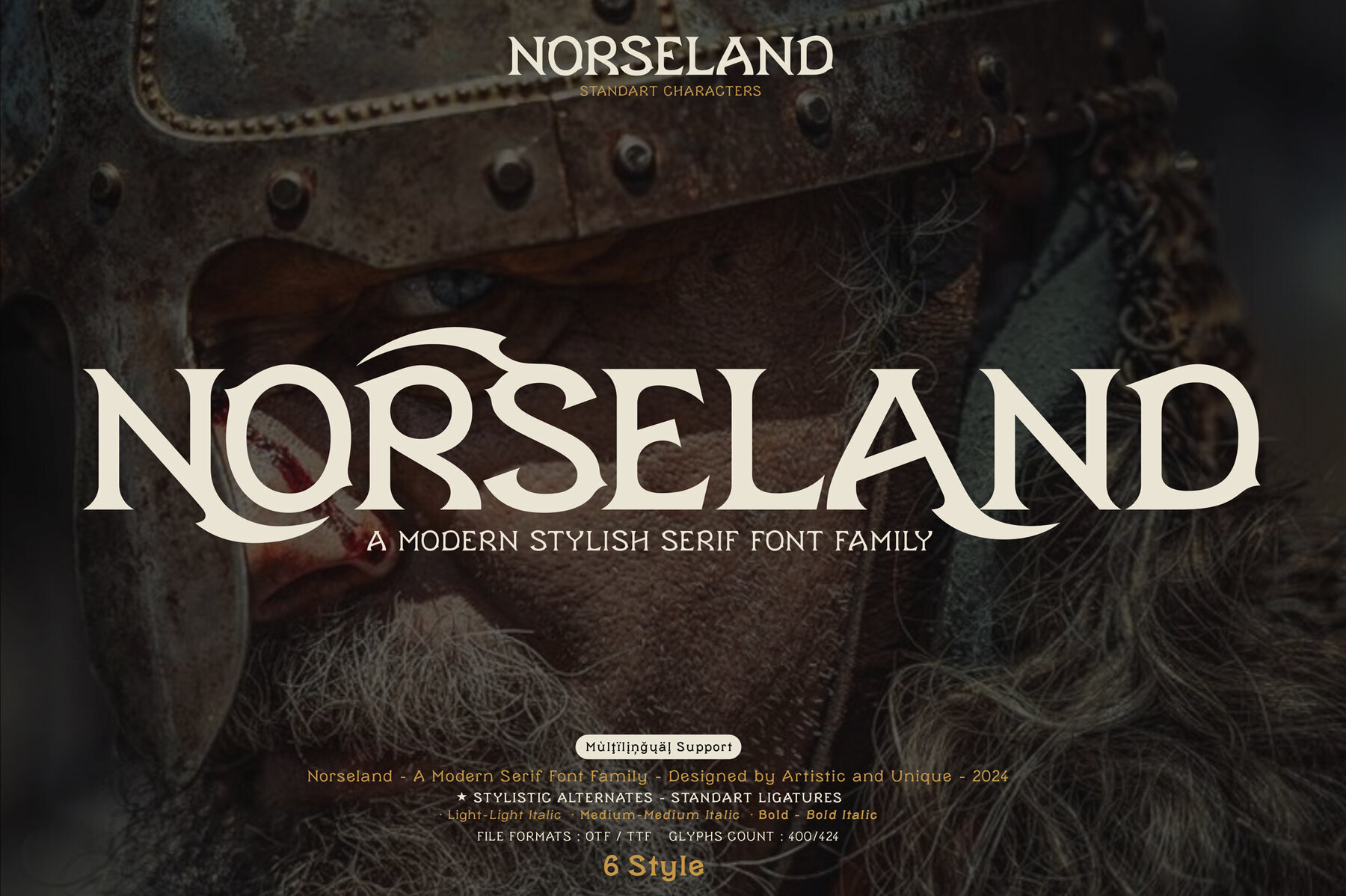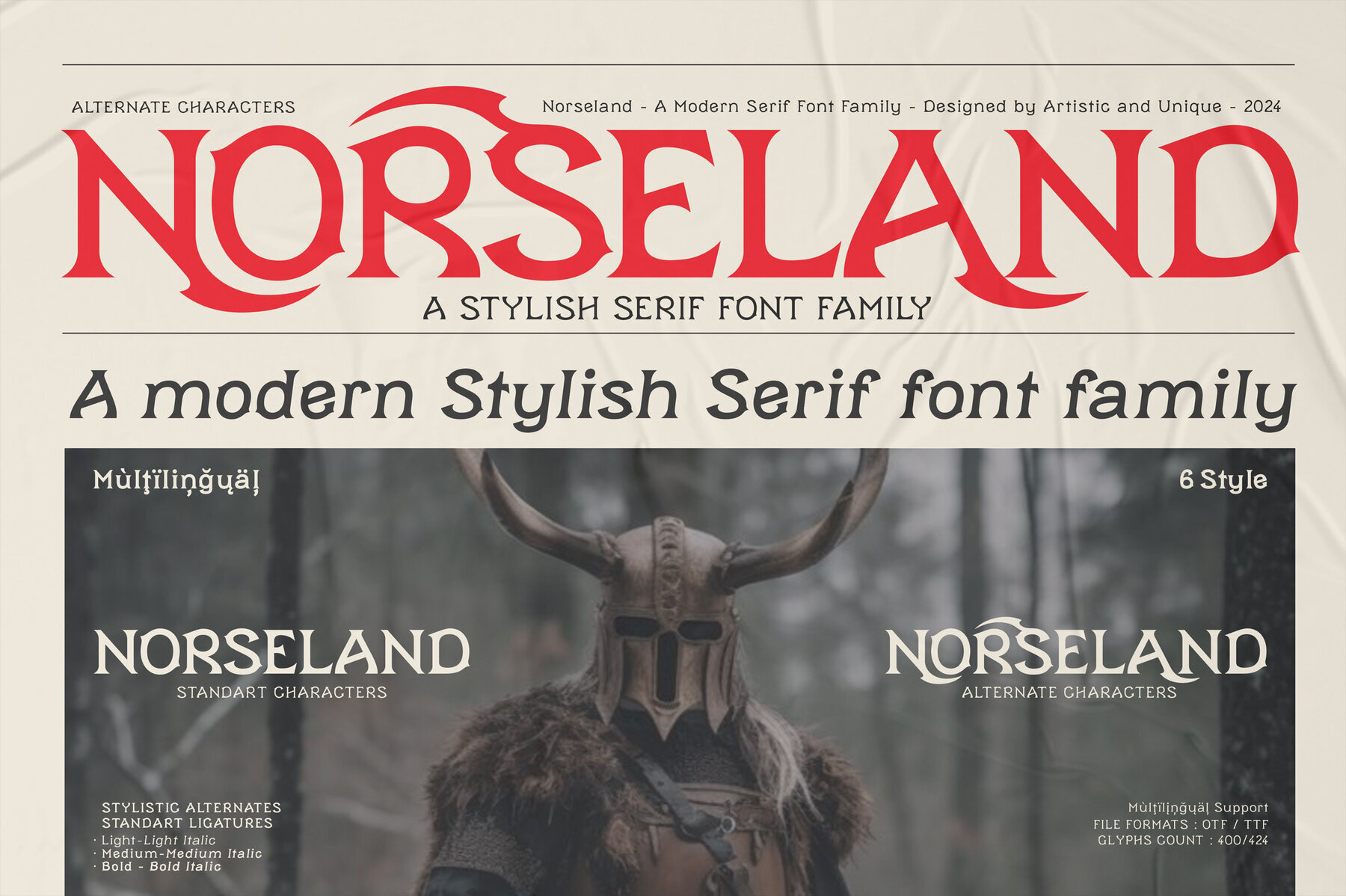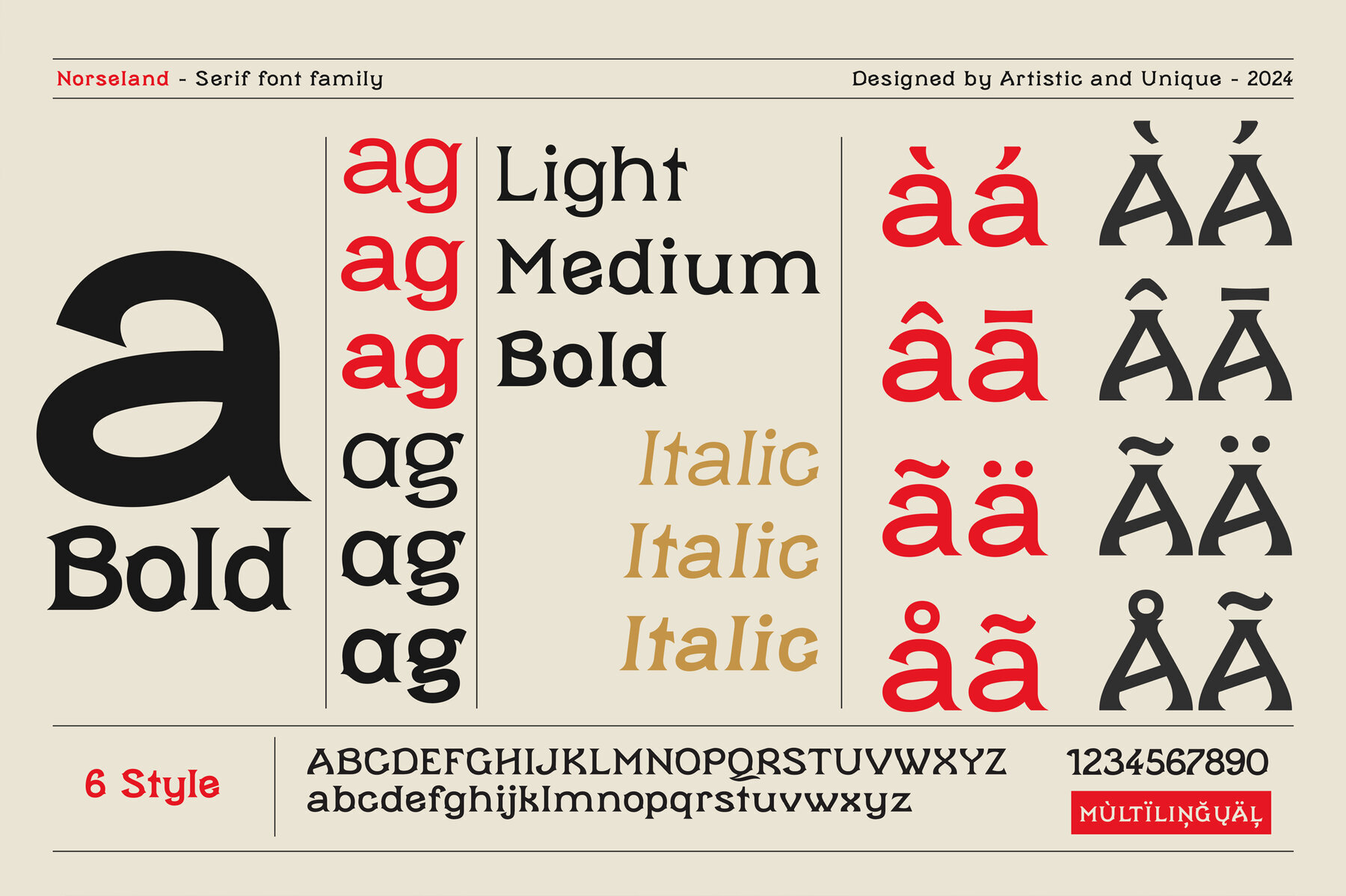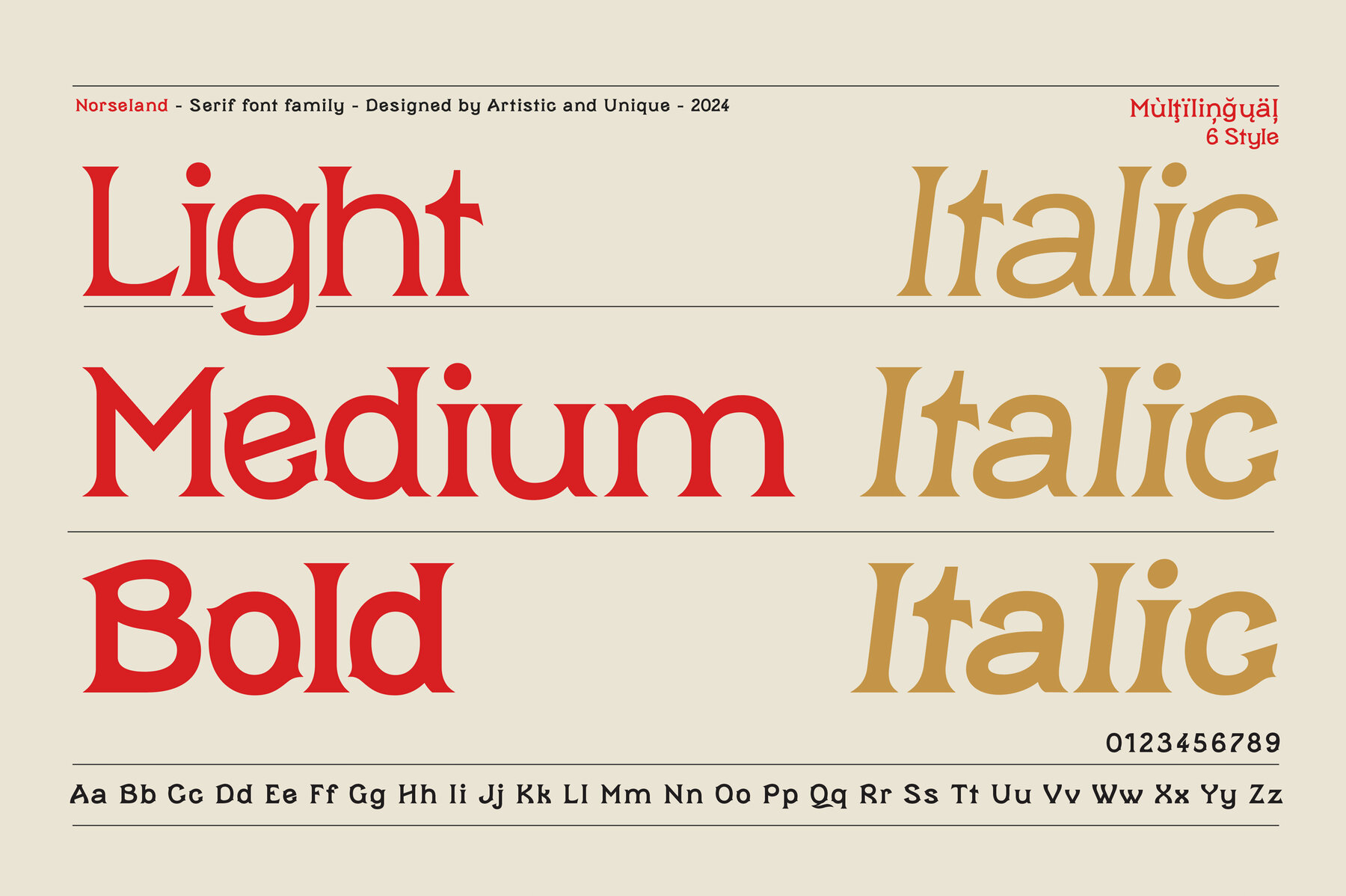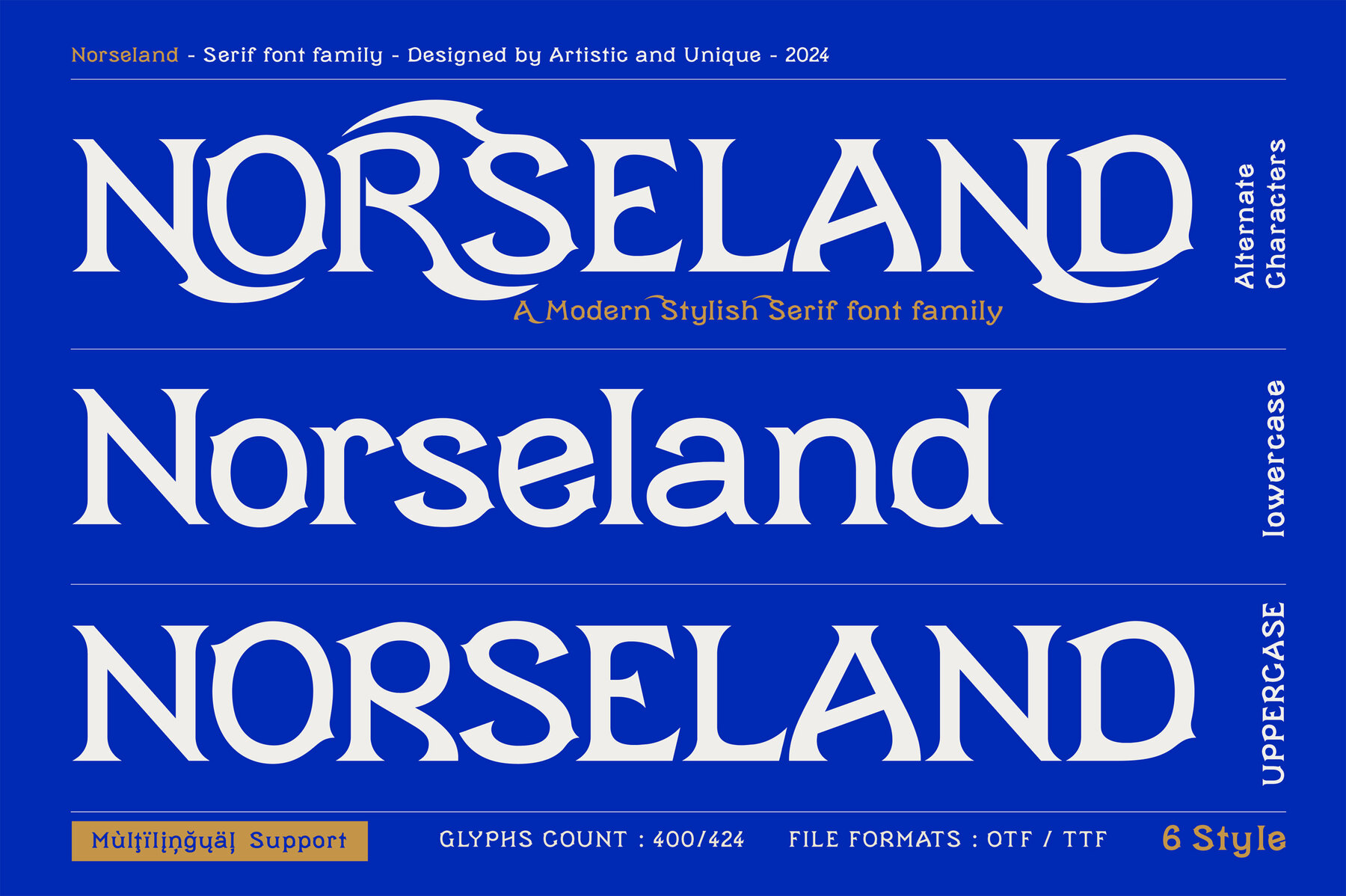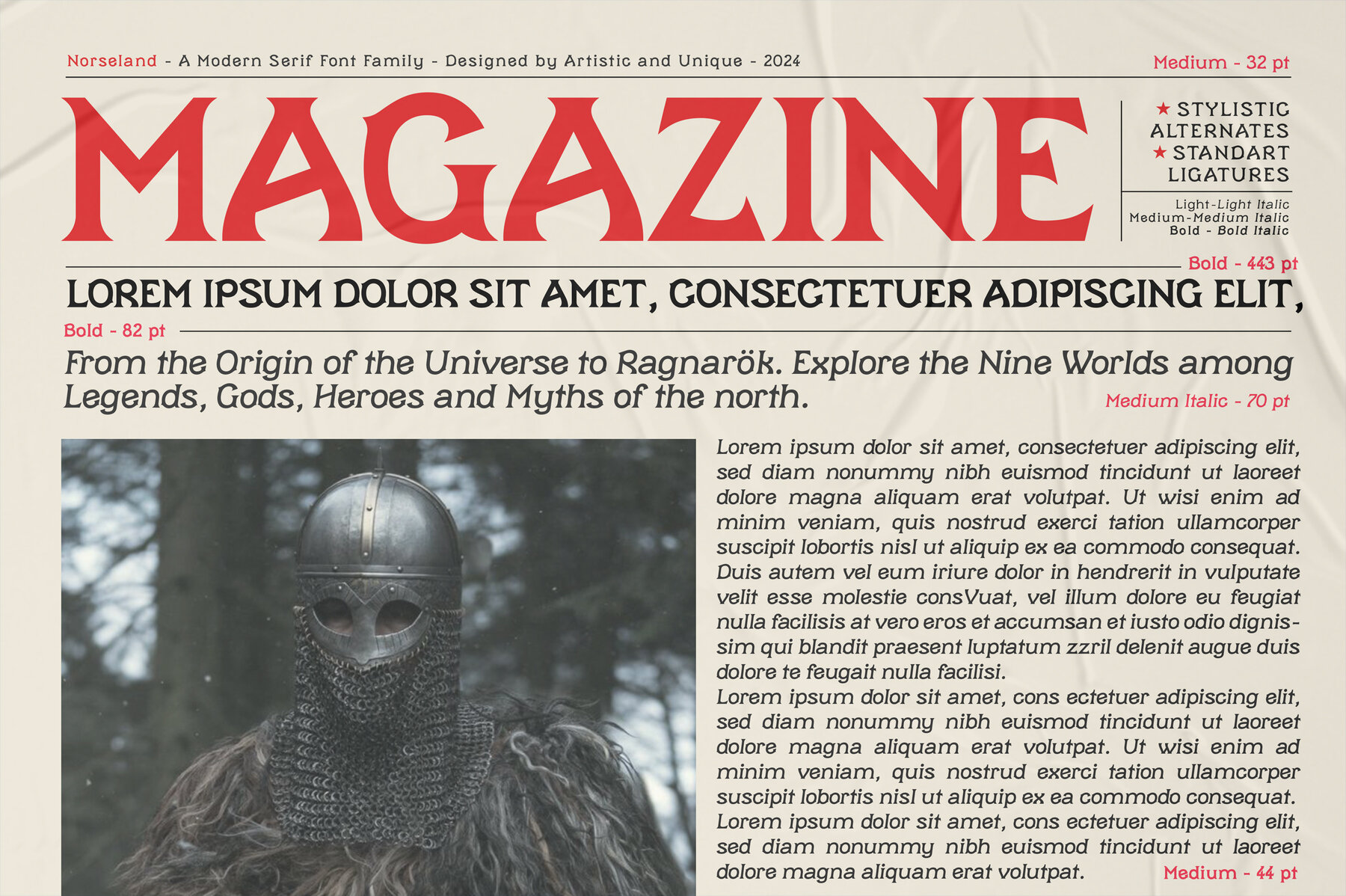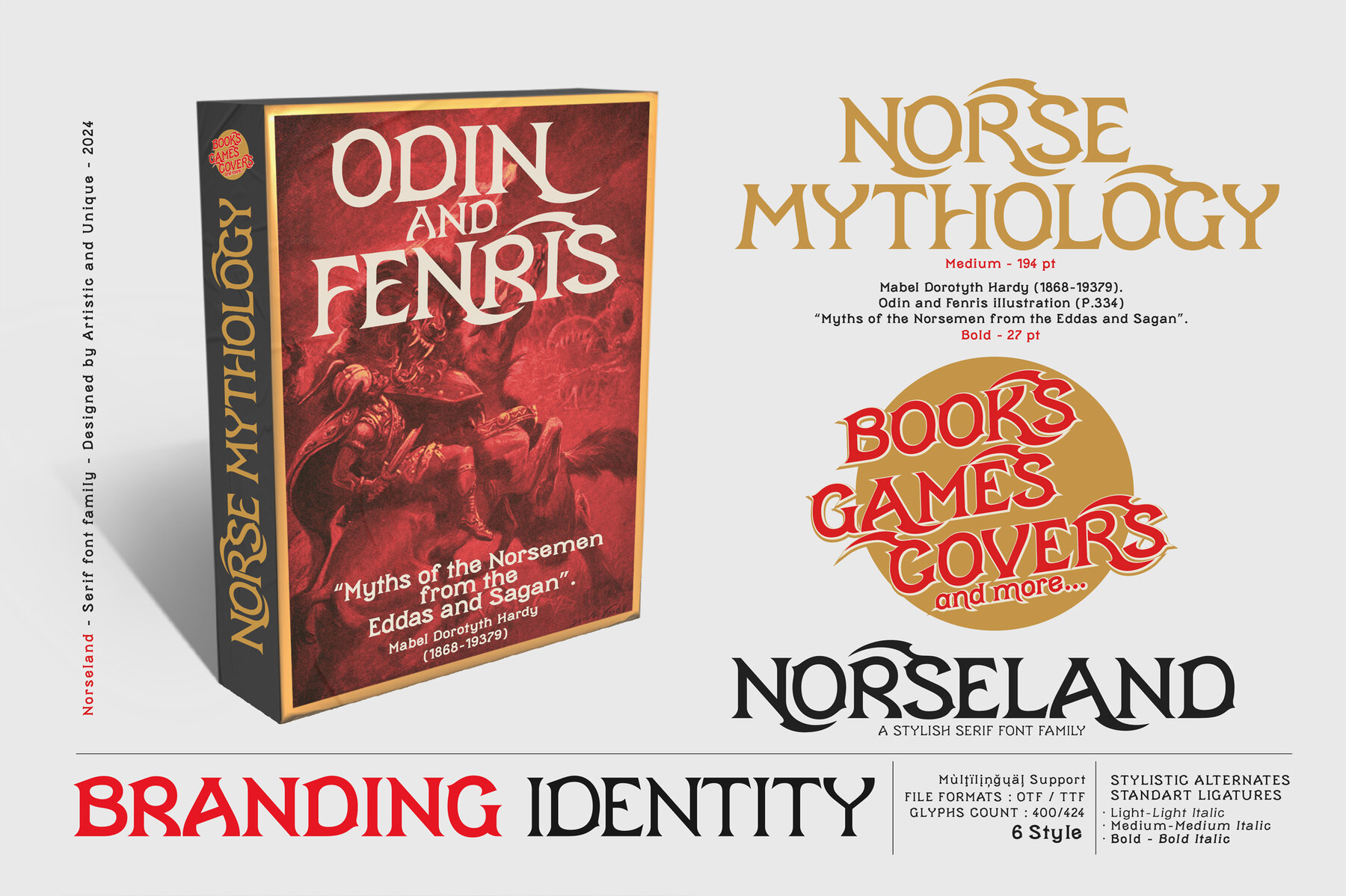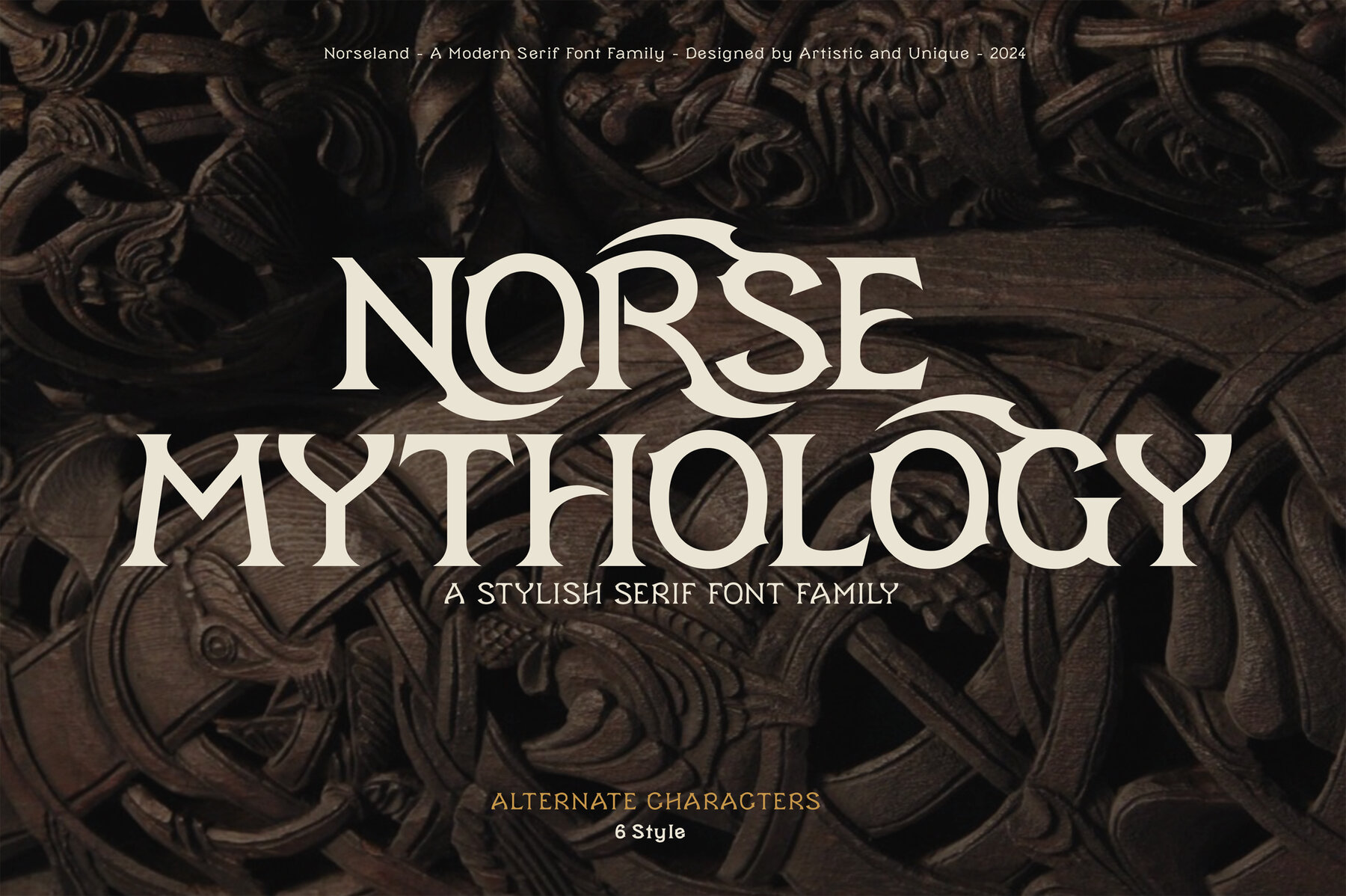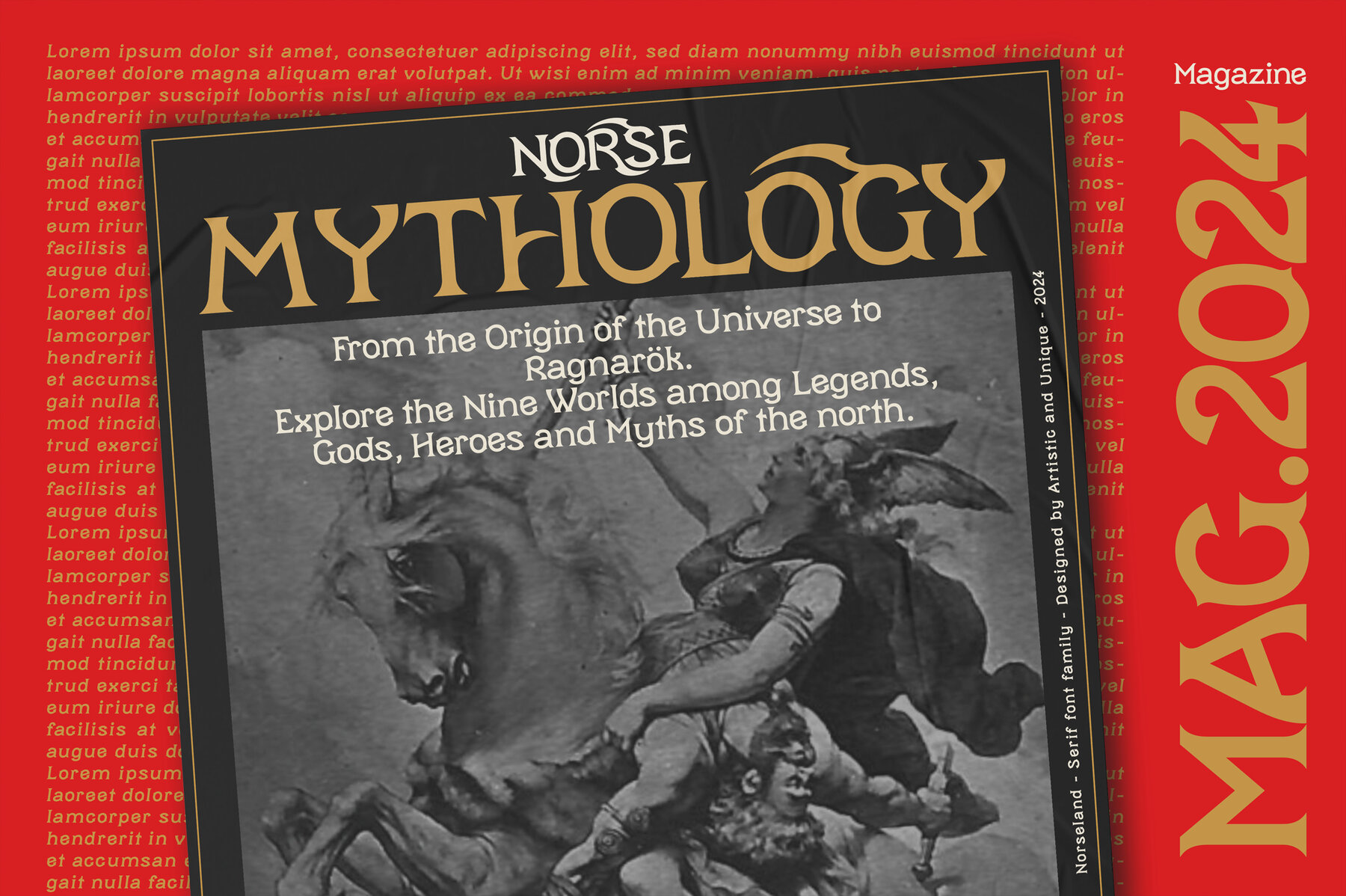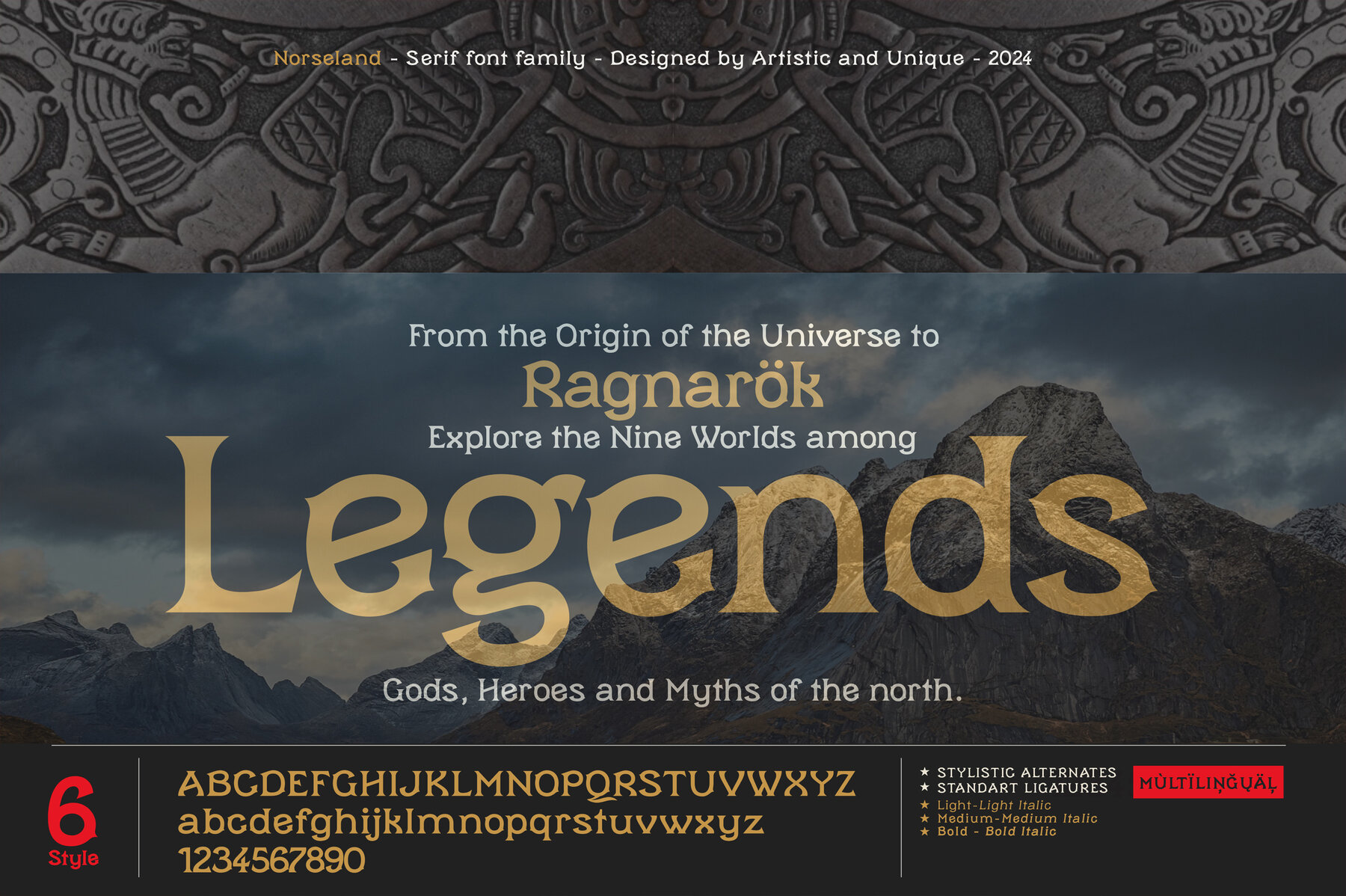
Norseland Font
Drawing inspiration from the rich tapestry of Norse mythology, Norseland emerges as a compelling serif font family. Suitable for a wide array of design applications, it offers six thoughtfully crafted styles along with comprehensive multilingual support. This font is ideal for graphic designers seeking versatility and a touch of mythology in their work. Norseland's stylistic versatility makes it ideal for: The Norseland font, with its alternative type designs, might just be the distinctive solution for your creative expressions. This font invites you to craft unique designs imbued with a spirit of legend.Norseland: A Mythically Inspired Serif